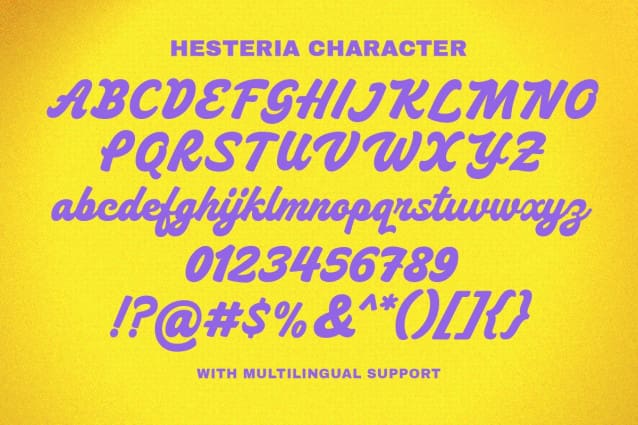
Hesteria Script Font
Hesteria Script Font is a playful bold script which will bring you back to 60s feel. This font perfectly made to be applied especially in logo, and the other various formal forms such as invitations, labels, logos, magazines, books, greeting / wedding cards, packaging, fashion, make up, stationery, novels, labels or any type of advertising purpose.